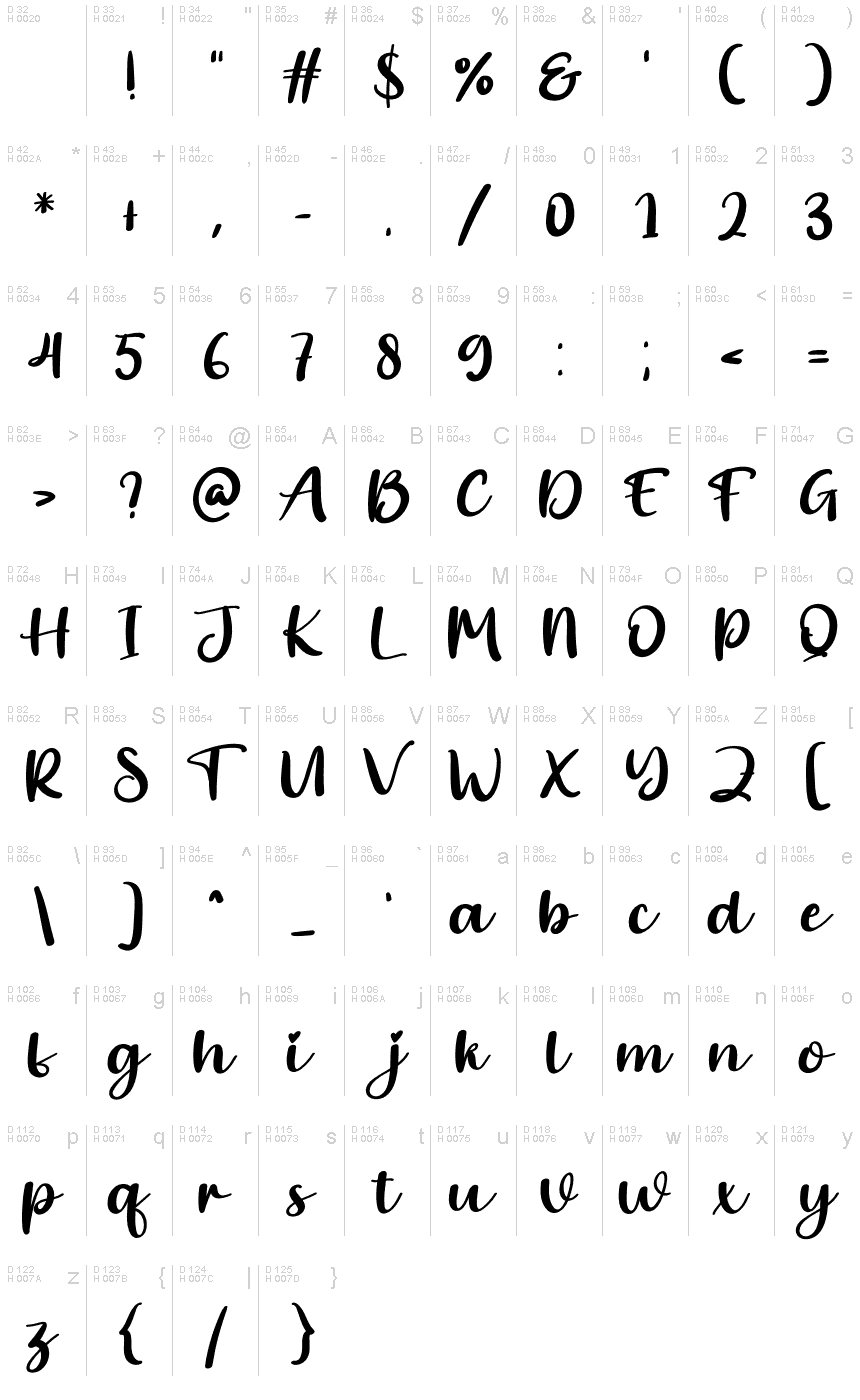
Apple
The Apple font, designed by Scratchones, brings a touch of authenticity to your projects with its handwritten style. Its marker-inspired strokes create a bold and expressive look that adds personality to any design.
Whether you're creating a logo for a hipster cafe or designing invitations for an artsy event, the Apple font is perfect for projects that require a unique and playful touch. Its semi-bold weight ensures readability without sacrificing the charm of its hand-drawn aesthetic.
Let your creativity flow with the Apple font!
The latest style letters are perfect for wall displays, wedding invitations, social media post logos, advertisements, product packaging, product designs, labels, photography, watermarks, invitations, stationery, and any project that requires taste handwriting.